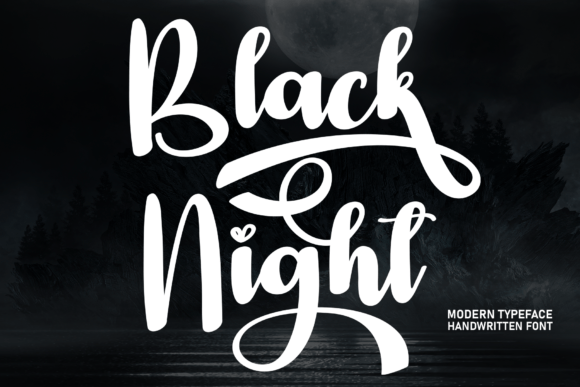
Our precious creation, "Black Night," invites you on a heartwarming journey, capturing the essence of romanticism and playfulness. Each stroke is a dance of love, leaving an indelible mark upon your digital creations. With "Black Night," you possess the power to transform ordinary designs into expressions of passion, transforming invitations, greeting cards, and posters into cherished keepsakes. Embrace the love within and let your designs bloom with enchanting elegance.
"Black Night" is more than just a font; it's a serenade that echoes the yearnings of the heart, a symphony of letters dancing to the rhythm of love. Its characters intertwine, whispering secrets that only lovers can understand. They embrace each other, creating a tapestry of emotions that resonate with the soul.
Indulge in the delight of creating heartfelt messages, invitations that carry the weight of your affection, and posters that radiate warmth and joy. With "Black Night," you can effortlessly capture the essence of love and spread it across your digital canvas. Share your passion with the world, let your designs ignite hearts and inspire dreams, and watch as your words take flight, carried by the wings of romance.